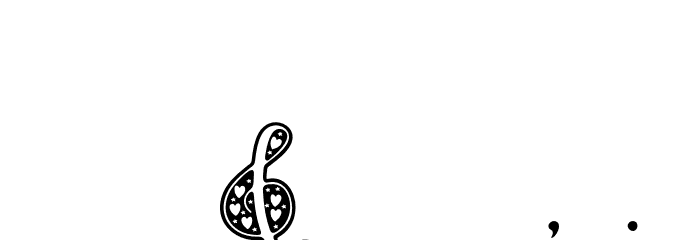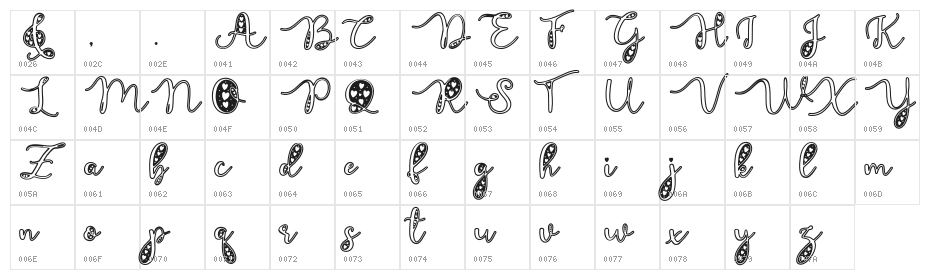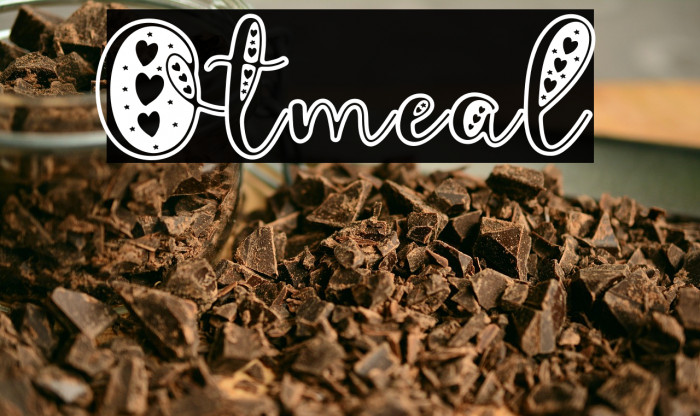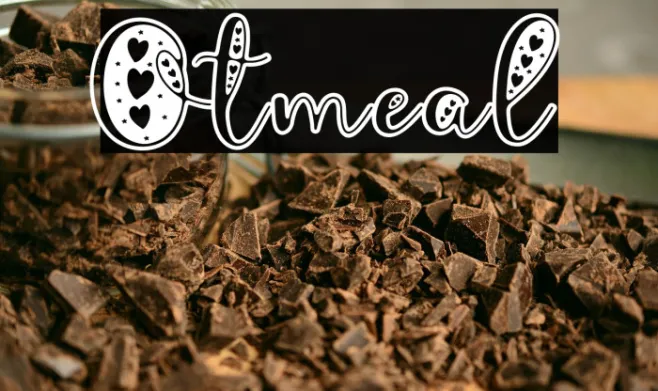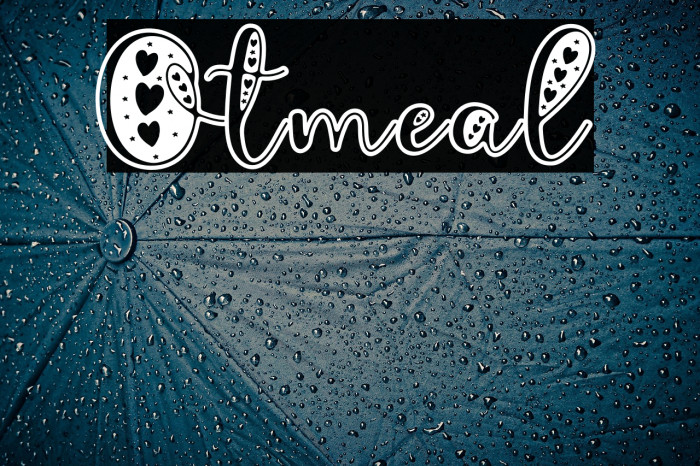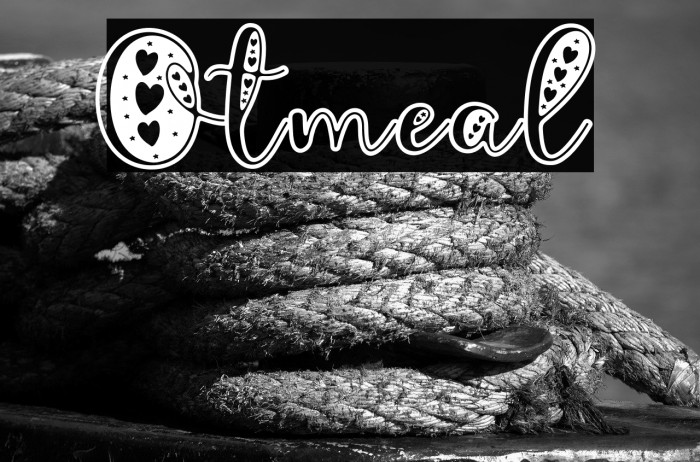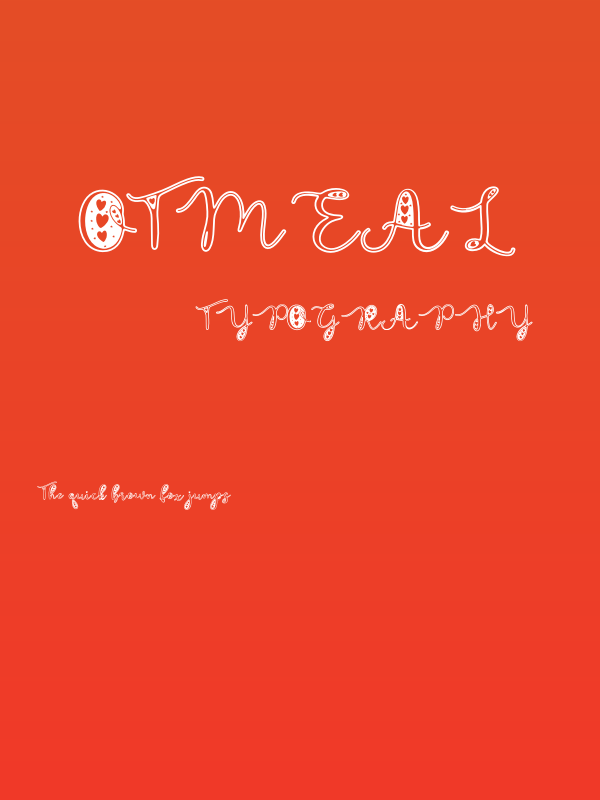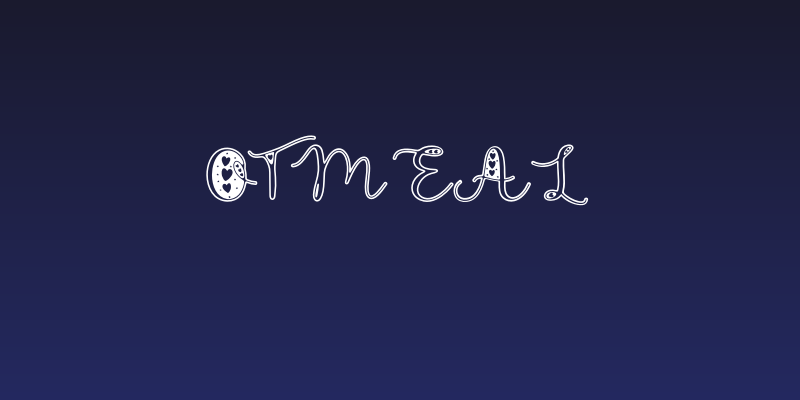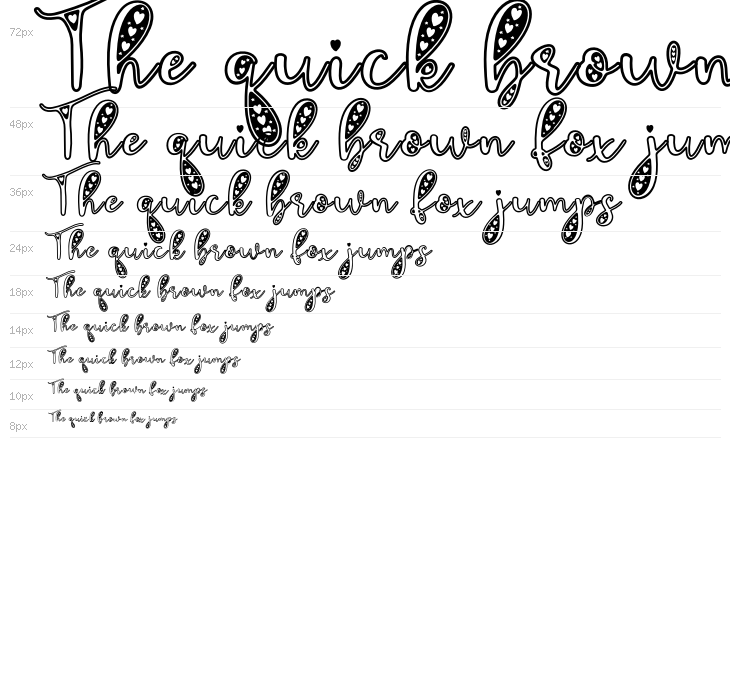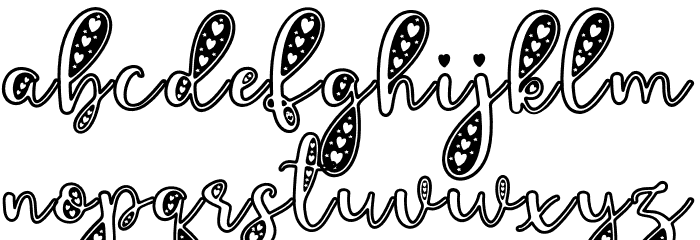
Otmeal Font
Otmeal Description
This font features a playful and decorative style, characterized by its whimsical, hand-drawn appearance. Each letter is adorned with intricate patterns and dots, giving it a unique and artistic flair. The strokes are smooth and flowing, with a consistent thickness that adds to its charm. The uppercase and lowercase letters maintain a cohesive look, while the numbers and special characters complement the overall design. This font is perfect for projects that require a touch of creativity and fun, making it ideal for invitations, greeting cards, and playful branding.
| Proposed Projects | Ideal for invitations, greeting cards, playful branding, and artistic projects. |